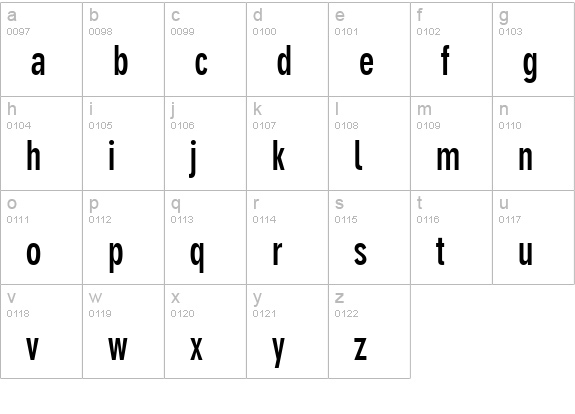
Parallax Grotesk SSi Bold Condensed Font Details
Parallax Grotesk SSi Bold Condensed is a strong, high-contrast, condensed-width variant in the Parallax typeface family \xE2\x80\x94 well suited to headlines, attention-grabbing titles, and strong calls-to-action.
Parallax Grotesk SSi Bold Condensed font is a stunning display typeface that exudes an air of modernity and sophistication. With its bold and condensed design, it commands attention and makes a bold statement in any project it is used in. This font's sharp edges and clean lines give it a contemporary and sleek look, making it perfect for headlines, logos, posters, and any other design that requires a strong visual impact. Its condensed nature allows for efficient use of space, making it ideal for projects that require a lot of text within a limited area. The Parallax Grotesk SSi Bold Condensed font is not only visually captivating but also incredibly versatile. It is suitable for both digital and print applications, ensuring that your designs will look stunning across various mediums. The bold weight adds emphasis and ensures that your message will be noticed and remembered. One of the standout features of this font is that it is available for free download at FontsMarket.com. This means that you can easily access and utilize this beautiful typeface without any cost, making it an excellent choice for designers on a budget or those looking to experiment with new fonts. Whether you're a professional designer or a hobbyist, the Parallax Grotesk SSi Bold Condensed font is a must-have in your typography toolkit. Its combination of striking aesthetics, versatility, and cost-free availability makes it an exceptional choice for any creative project. So, head over to FontsMarket.com and download this font today to elevate your designs to the next level.